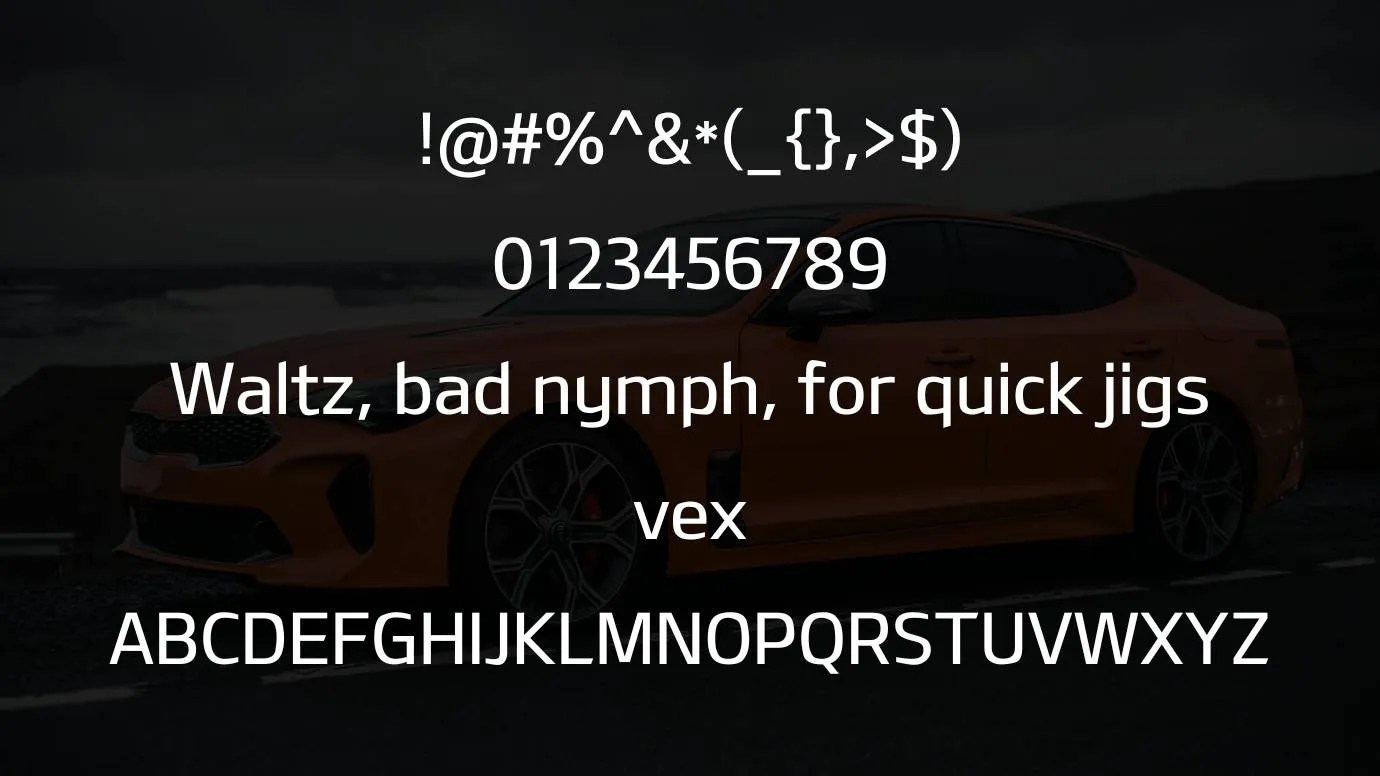
What Font Does Kia Use . Aug 31, 2023 at 10:45. The logo is a light sans serif font with an asymmetric and handwritten signature look, and. The fonts and brand names displayed on this site are for informational purposes only. Since 1994, kia has used variations of its current logo, which has the word kia ringed by an oval, with minor alterations in 2004 and 2012. Kia introduced a new logo and slogan in 2021, reflecting its commitment to innovation and change. The kia logo uses a custom, stylized font. The font used in the kia logo. Next up, let’s talk about that sleek font. Learn how to use the new kia logo, fonts, colours and guidelines to create a consistent and inspiring brand image. Download the resources and access the brand story, logo suite and application. We are not affiliated with, endorsed by, or in any way connected to the.
The logo is a light sans serif font with an asymmetric and handwritten signature look, and. The font used in the kia logo. Kia introduced a new logo and slogan in 2021, reflecting its commitment to innovation and change. Learn how to use the new kia logo, fonts, colours and guidelines to create a consistent and inspiring brand image. The fonts and brand names displayed on this site are for informational purposes only. Next up, let’s talk about that sleek font. The kia logo uses a custom, stylized font. Download the resources and access the brand story, logo suite and application. We are not affiliated with, endorsed by, or in any way connected to the. Since 1994, kia has used variations of its current logo, which has the word kia ringed by an oval, with minor alterations in 2004 and 2012.
What Font Does Kia Use Kia introduced a new logo and slogan in 2021, reflecting its commitment to innovation and change. Aug 31, 2023 at 10:45. Download the resources and access the brand story, logo suite and application. Kia introduced a new logo and slogan in 2021, reflecting its commitment to innovation and change. Learn how to use the new kia logo, fonts, colours and guidelines to create a consistent and inspiring brand image. The kia logo uses a custom, stylized font. The logo is a light sans serif font with an asymmetric and handwritten signature look, and. The fonts and brand names displayed on this site are for informational purposes only. We are not affiliated with, endorsed by, or in any way connected to the. Since 1994, kia has used variations of its current logo, which has the word kia ringed by an oval, with minor alterations in 2004 and 2012. Next up, let’s talk about that sleek font. The font used in the kia logo.
Kia Logo, Kia Car Symbol Meaning and History Car Brand What Font Does Kia Use Kia introduced a new logo and slogan in 2021, reflecting its commitment to innovation and change. We are not affiliated with, endorsed by, or in any way connected to the. Learn how to use the new kia logo, fonts, colours and guidelines to create a consistent and inspiring brand image. Download the resources and access the brand story, logo suite. What Font Does Kia Use.
Discover the new design of new kia logos and be amazed What Font Does Kia Use Learn how to use the new kia logo, fonts, colours and guidelines to create a consistent and inspiring brand image. The fonts and brand names displayed on this site are for informational purposes only. Since 1994, kia has used variations of its current logo, which has the word kia ringed by an oval, with minor alterations in 2004 and 2012.. What Font Does Kia Use.
Kia Motors Logo Lawrence Kia Font PNG, Clipart, 2019 Kia Sorento, Area What Font Does Kia Use The font used in the kia logo. Since 1994, kia has used variations of its current logo, which has the word kia ringed by an oval, with minor alterations in 2004 and 2012. Download the resources and access the brand story, logo suite and application. We are not affiliated with, endorsed by, or in any way connected to the. The. What Font Does Kia Use.
Kia’nın yeni logosu olay oldu CHIP Online What Font Does Kia Use We are not affiliated with, endorsed by, or in any way connected to the. The kia logo uses a custom, stylized font. Next up, let’s talk about that sleek font. The font used in the kia logo. Learn how to use the new kia logo, fonts, colours and guidelines to create a consistent and inspiring brand image. Aug 31, 2023. What Font Does Kia Use.
kia new logo font Ester Reich What Font Does Kia Use Learn how to use the new kia logo, fonts, colours and guidelines to create a consistent and inspiring brand image. Aug 31, 2023 at 10:45. The font used in the kia logo. Next up, let’s talk about that sleek font. The logo is a light sans serif font with an asymmetric and handwritten signature look, and. The fonts and brand. What Font Does Kia Use.
Evolution of KIA Logo & Understanding the “KN” Logo Design What Font Does Kia Use The font used in the kia logo. Learn how to use the new kia logo, fonts, colours and guidelines to create a consistent and inspiring brand image. The kia logo uses a custom, stylized font. The fonts and brand names displayed on this site are for informational purposes only. Download the resources and access the brand story, logo suite and. What Font Does Kia Use.
Kia font download for or What Font Does Kia Use Since 1994, kia has used variations of its current logo, which has the word kia ringed by an oval, with minor alterations in 2004 and 2012. We are not affiliated with, endorsed by, or in any way connected to the. Aug 31, 2023 at 10:45. The fonts and brand names displayed on this site are for informational purposes only. Next. What Font Does Kia Use.
Kia Font Free Download What Font Does Kia Use Learn how to use the new kia logo, fonts, colours and guidelines to create a consistent and inspiring brand image. We are not affiliated with, endorsed by, or in any way connected to the. The logo is a light sans serif font with an asymmetric and handwritten signature look, and. Next up, let’s talk about that sleek font. The kia. What Font Does Kia Use.
kia new logo font Ester Reich What Font Does Kia Use Next up, let’s talk about that sleek font. The fonts and brand names displayed on this site are for informational purposes only. The logo is a light sans serif font with an asymmetric and handwritten signature look, and. Since 1994, kia has used variations of its current logo, which has the word kia ringed by an oval, with minor alterations. What Font Does Kia Use.